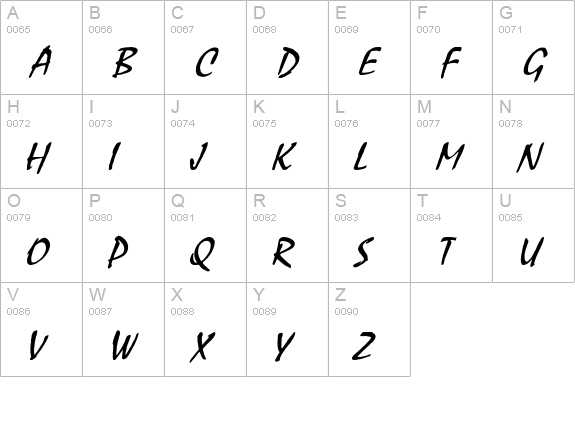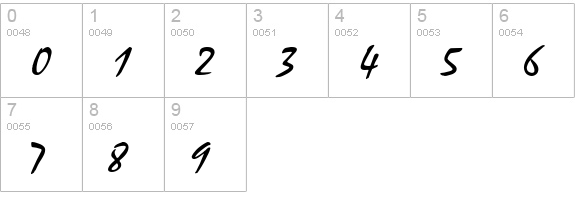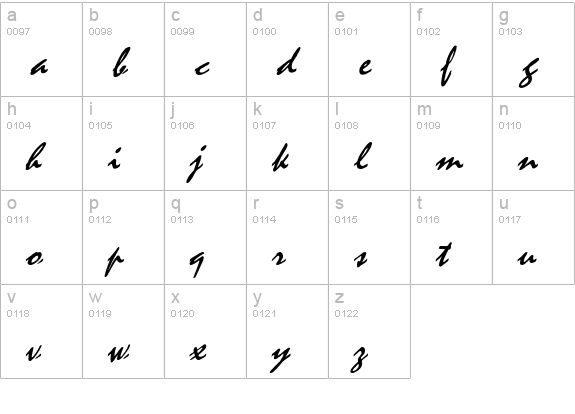
Mystic Italic is a distinctive, italic variant in the Mystic typeface family \xE2\x80\x94 well suited to design and typography projects.
Introducing Mystic Italic font, a captivating and enchanting typeface that exudes a sense of mystery and sophistication. With its elegant and flowing italic style, Mystic Italic brings a touch of magic to any design project. Perfect for adding a mystical charm to invitations, posters, branding, and more, this font is sure to captivate your audience. And the best part? Mystic Italic is available for free download at FontsMarket.com! Don't miss out on the opportunity to add this unique and versatile font to your collection. Embrace the magic of Mystic Italic and elevate your designs to a whole new level.